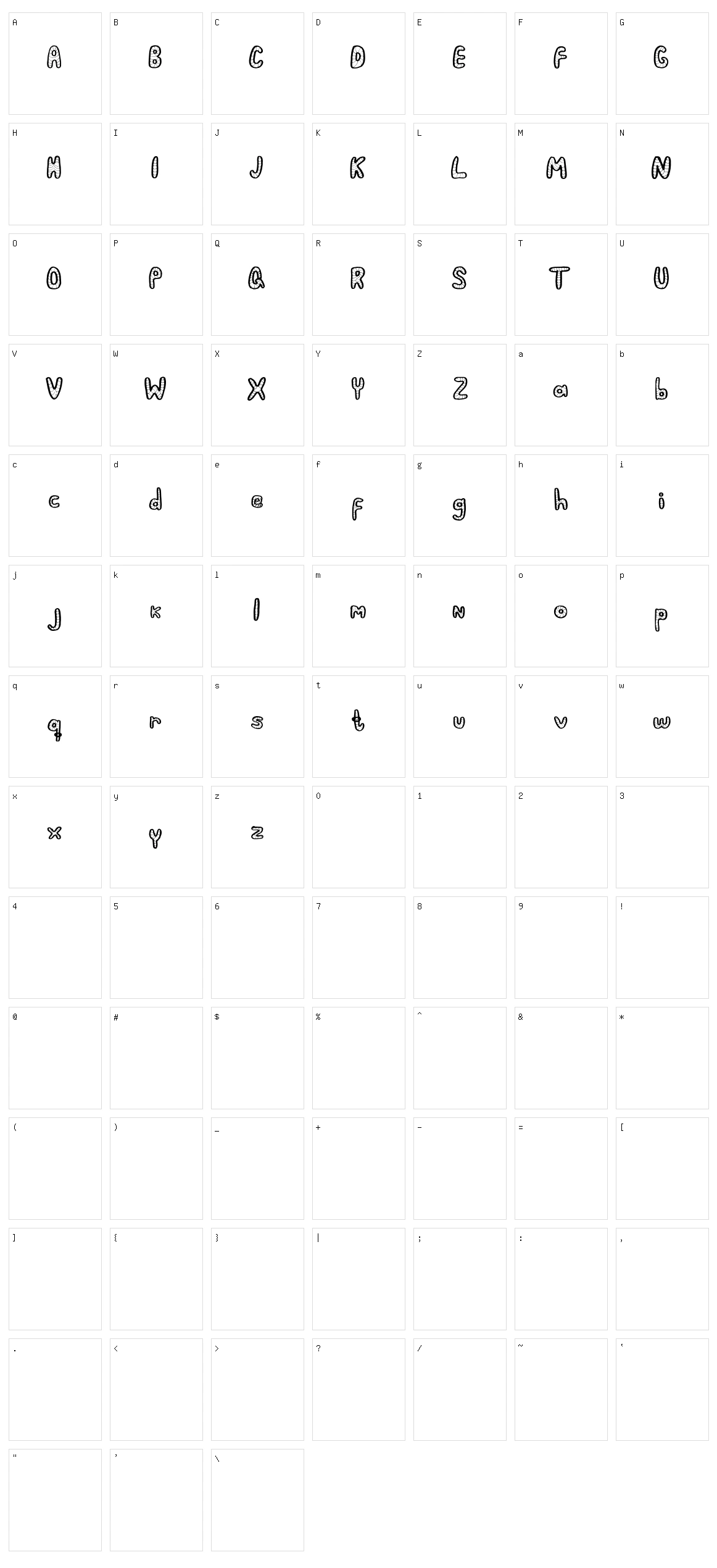
The free font Periquito is carefully designed by Badi Ighani, showcasing a thoughtful balance of creativity and usability and falls under the Cartoon font style. When you download the ZIP file, it contains only 36.56 KB of font files, making it lightweight and quick to download. Please review the license details below to understand permitted usage and distribution rights. If license information is not available, we recommend using this font for personal projects only or contacting the author directly for commercial usage permissions.